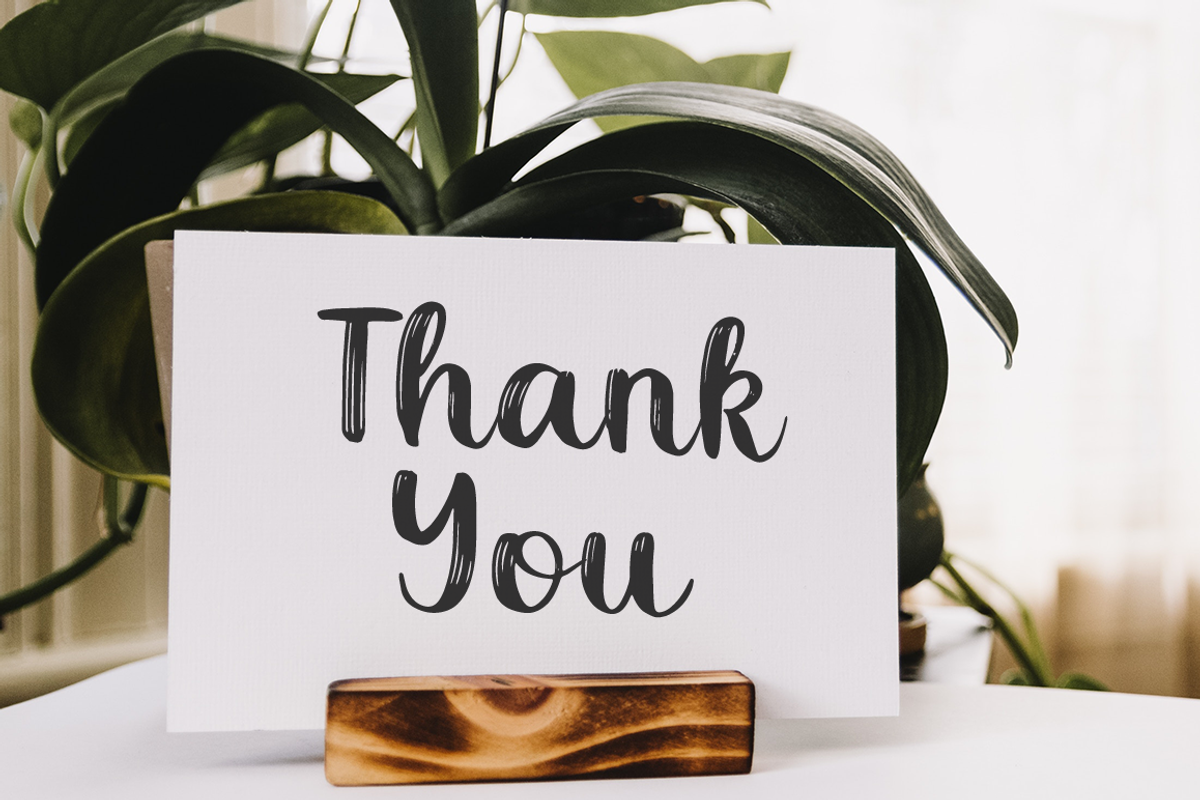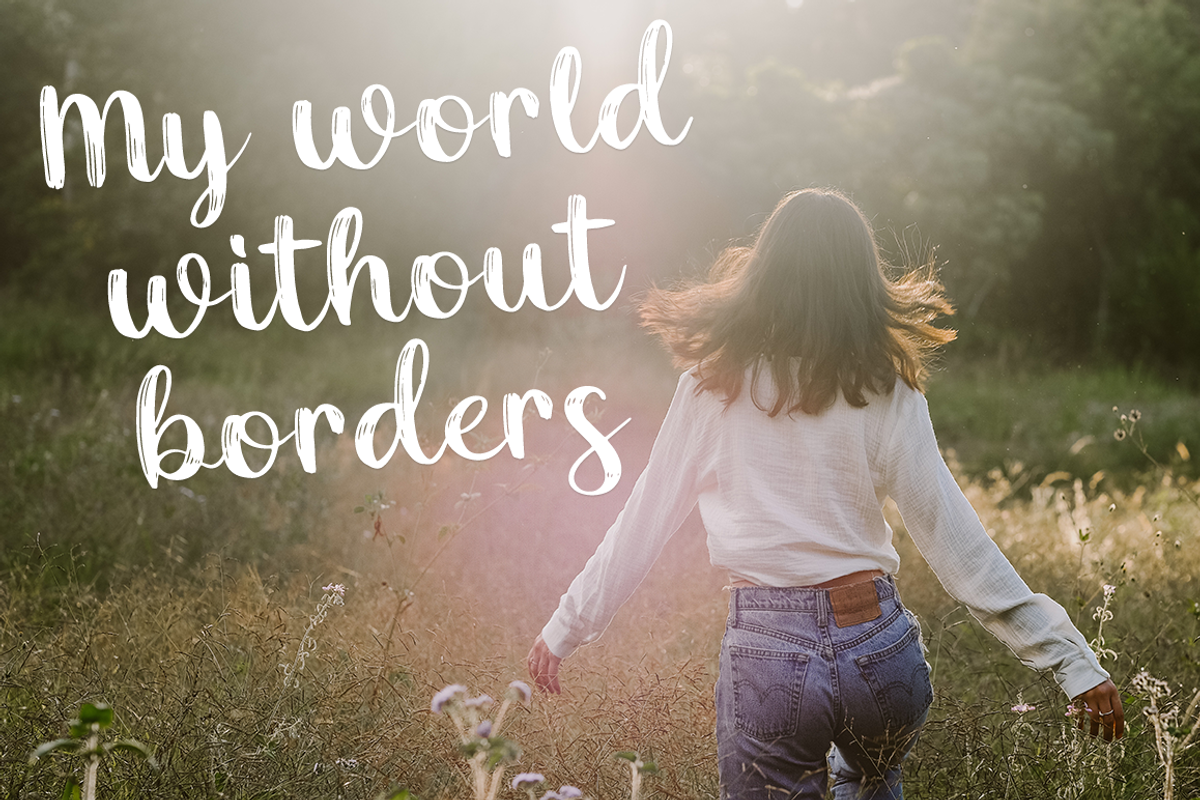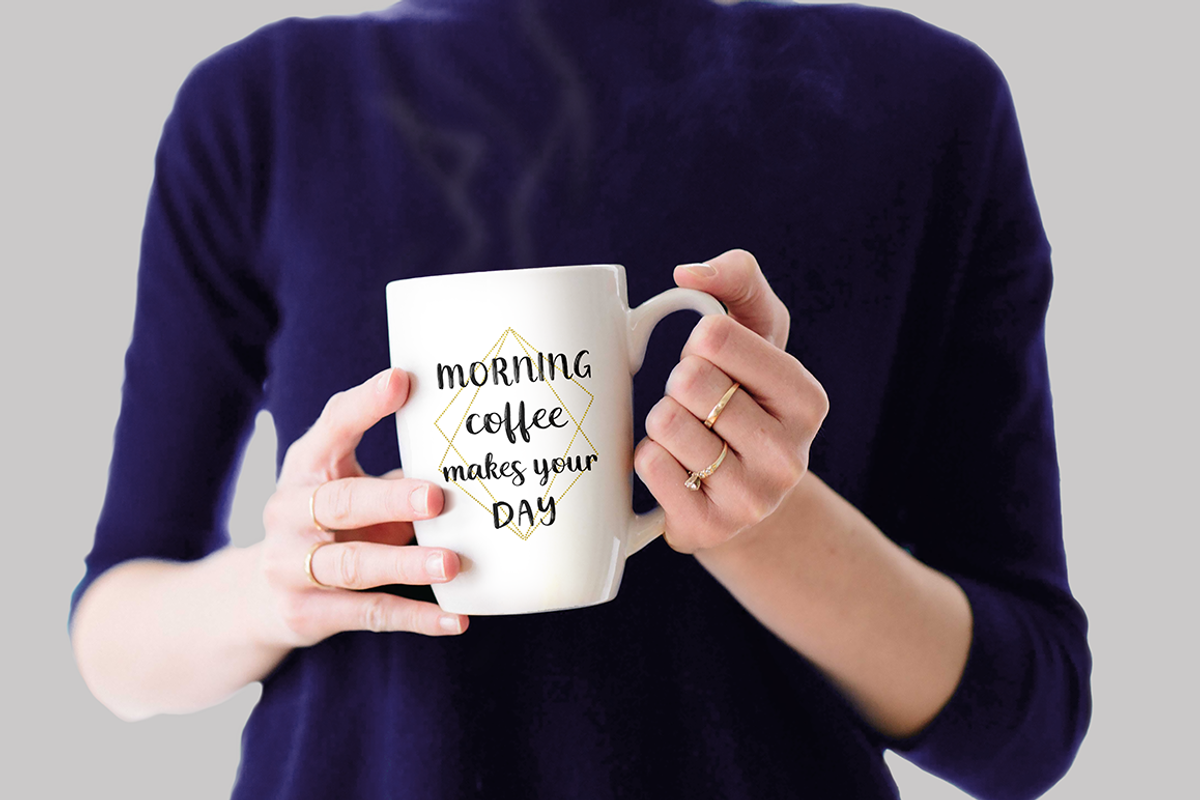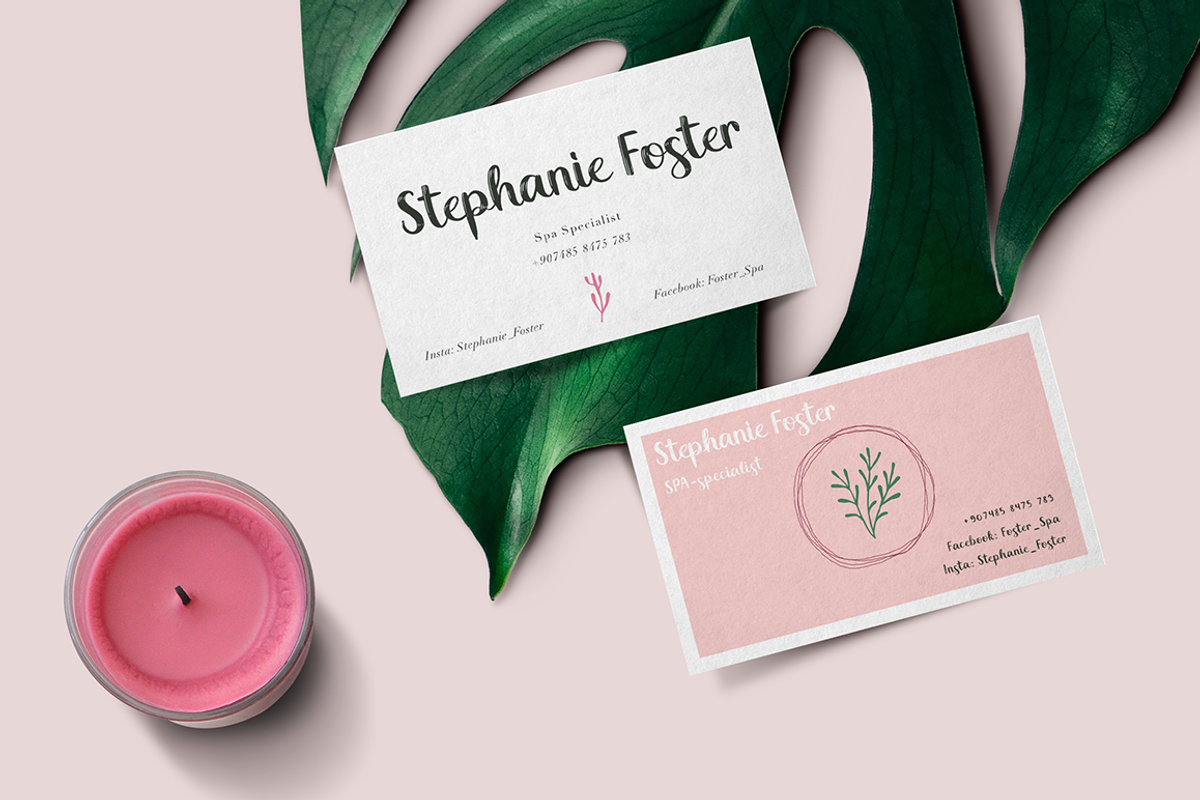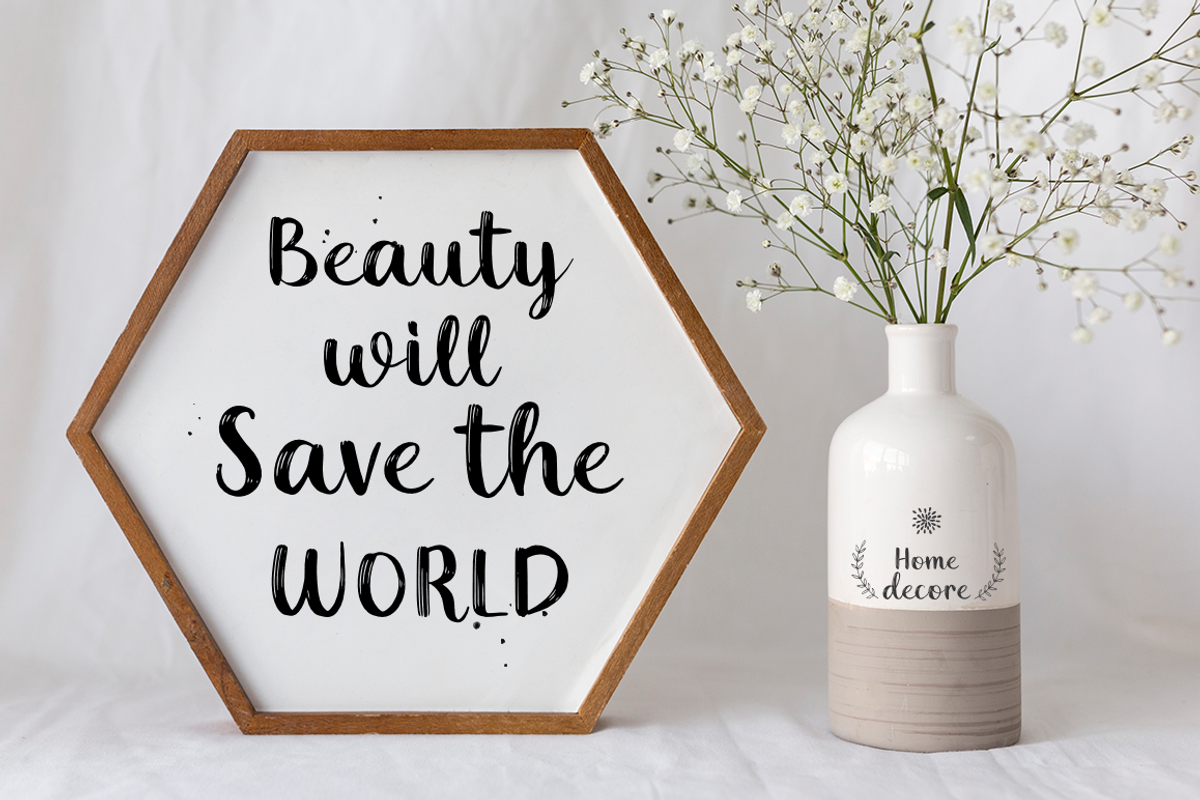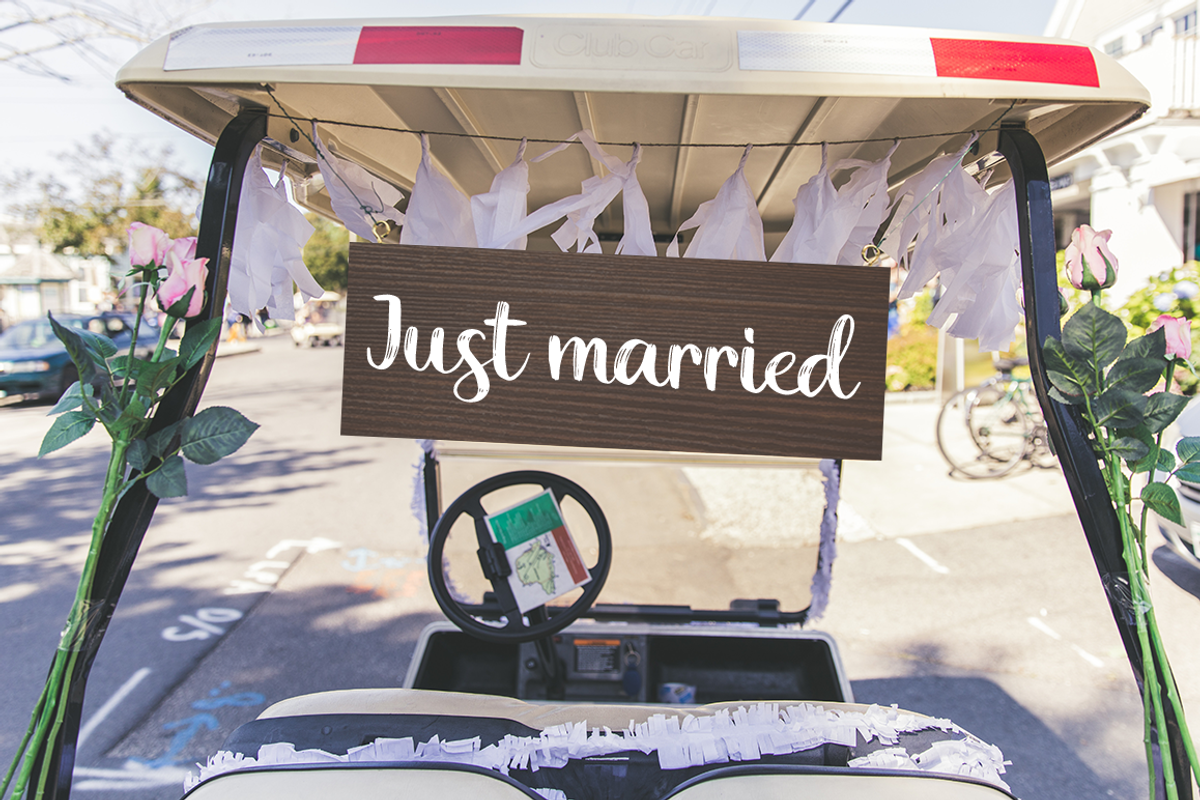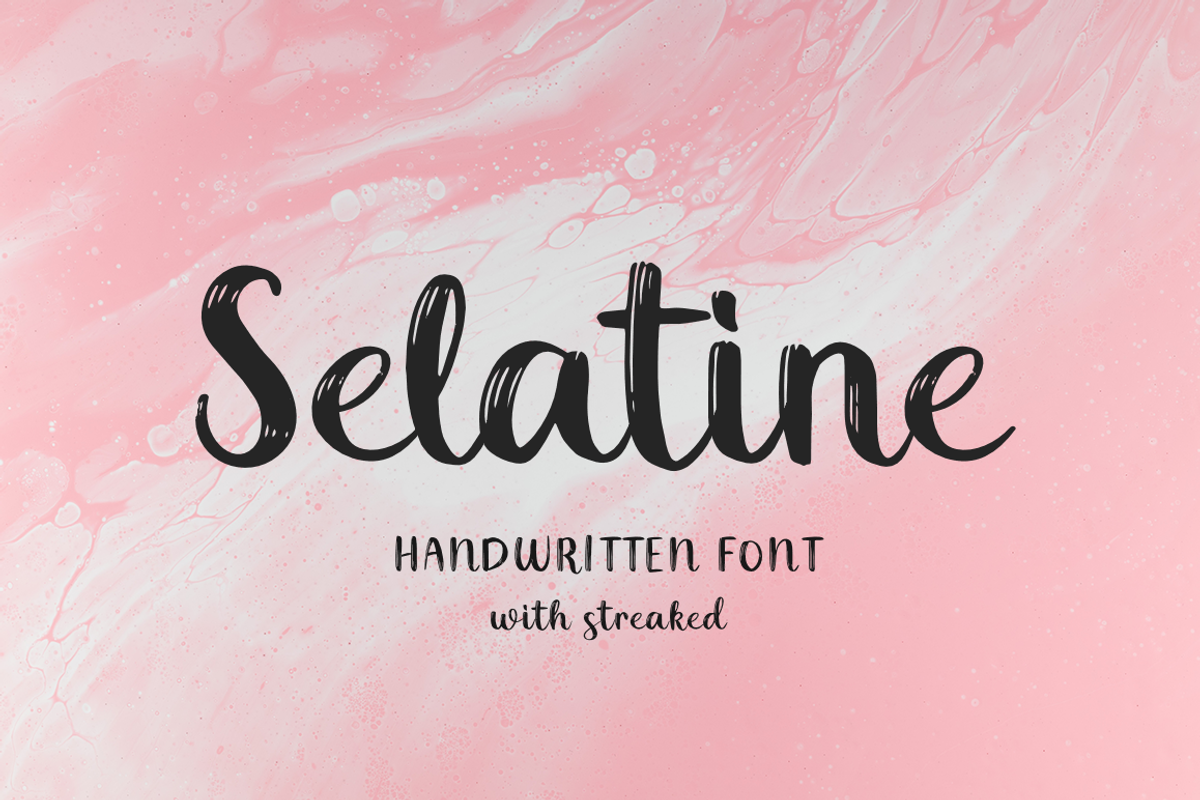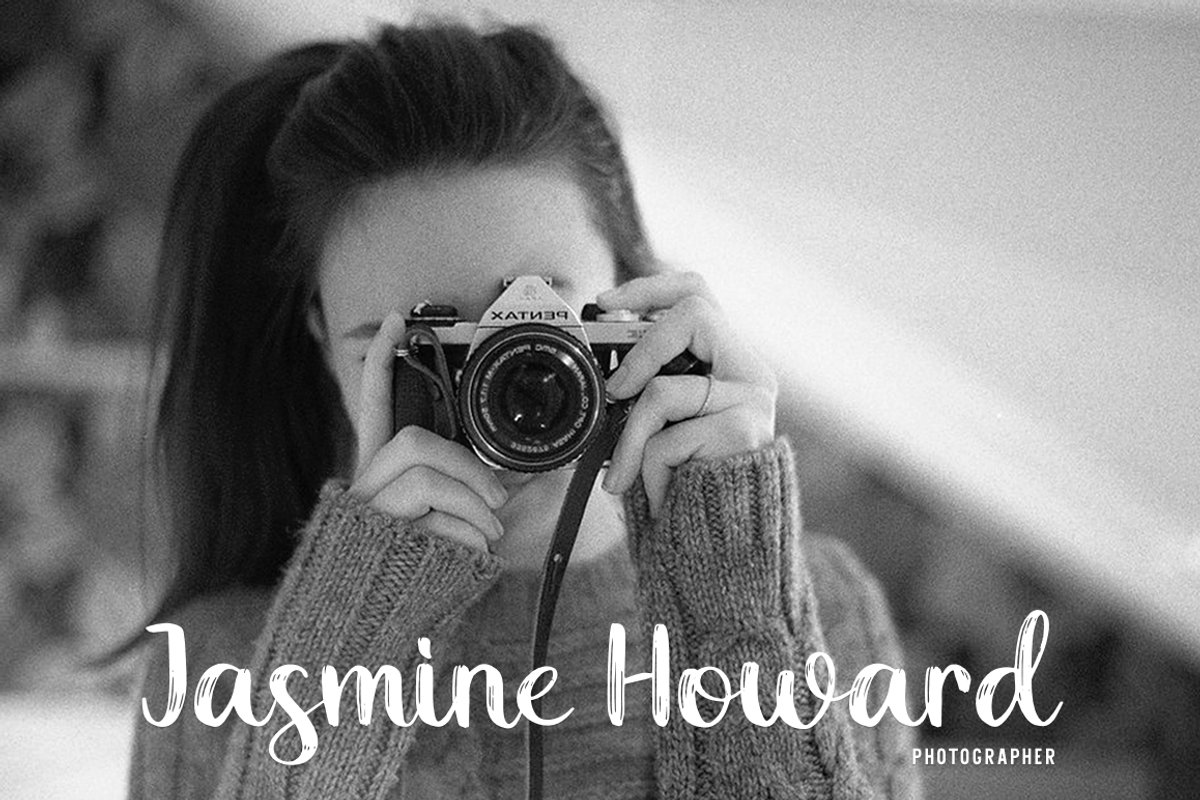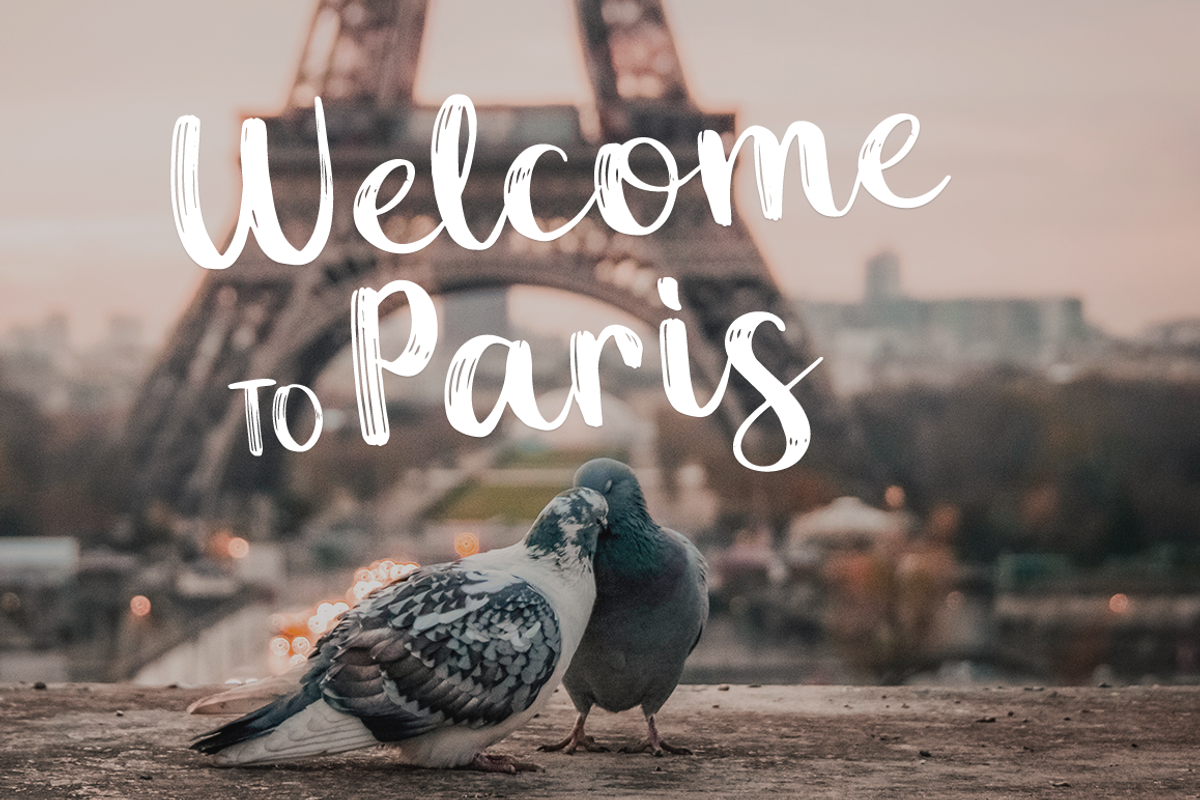
Selatine
Selatine- a new handwritten font with streaks.
This font is ideal for branding and decorate your any project, are perfect for wedding invitation or your blog. Also with their help, you can create a logo or beautiful frame for your home. Or just use for your small business, book covers, stationery, marketing, magazines and more.
Following international symbols support: ÀÁÂÃÄÅĄÇĆÈÉÊËĘÌÍÎÏÐÑŃŁÒÓÔÕÖØÙÚÛÜŚŠŸÝŹŻŽßàáâãäåçèéêëìíîïðñòóôõöøùúûüýÿąćęłńśšźżž